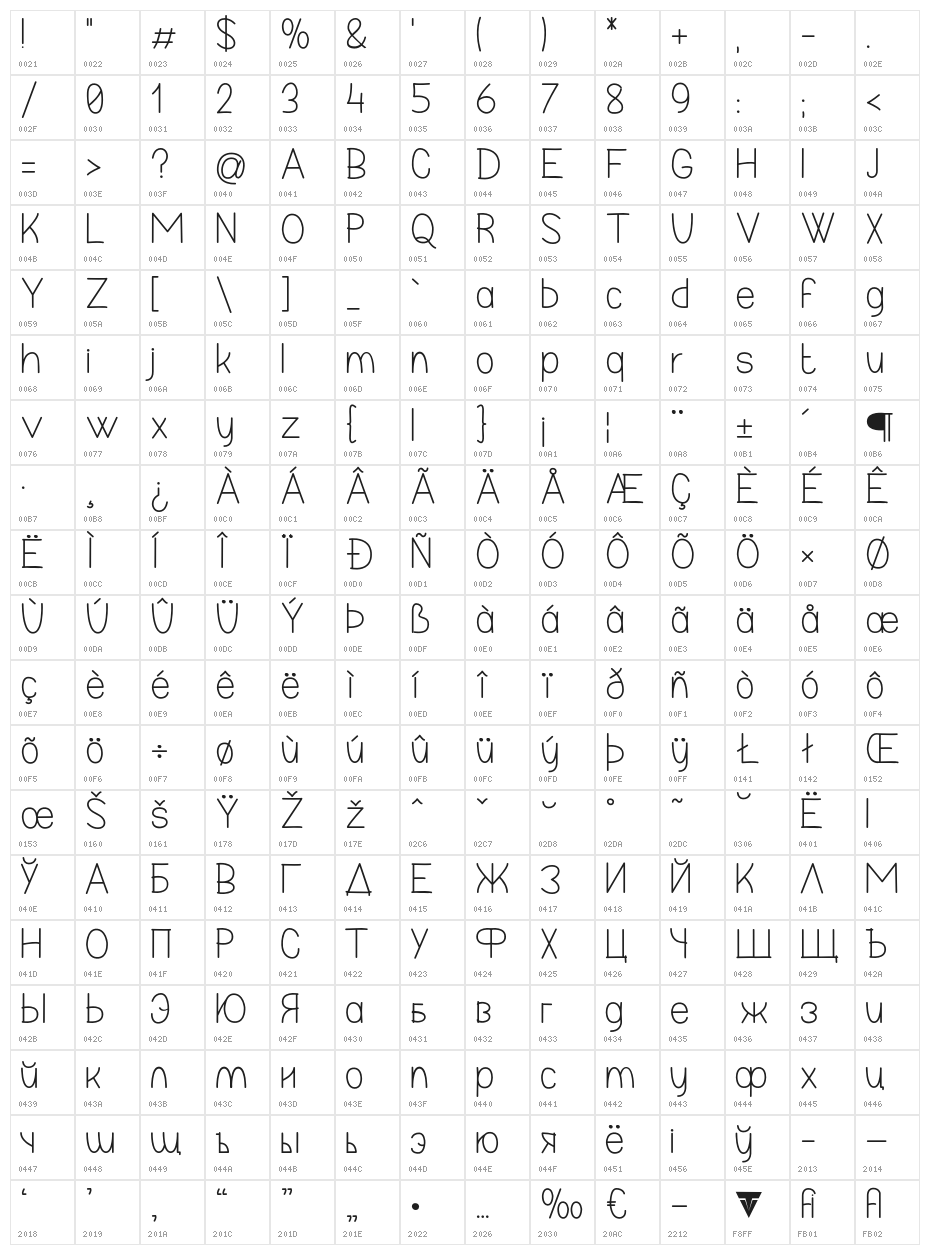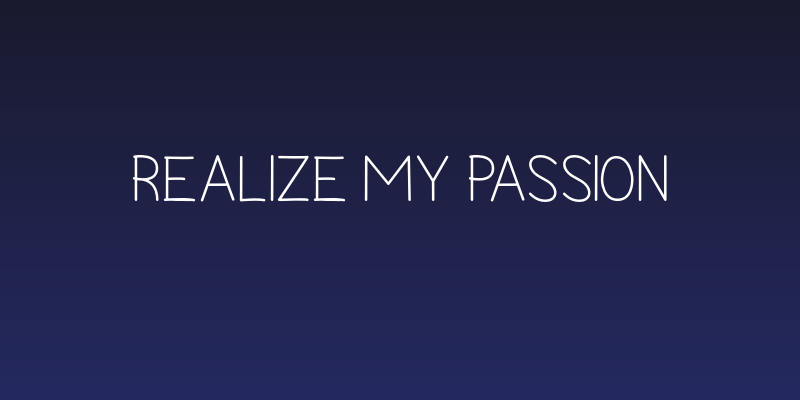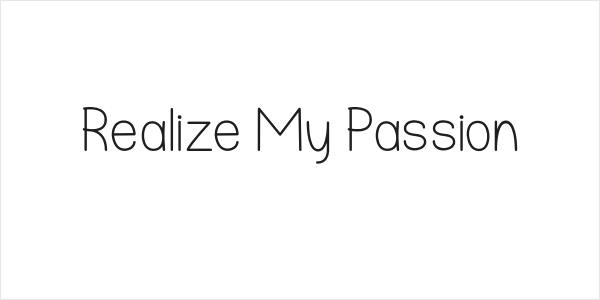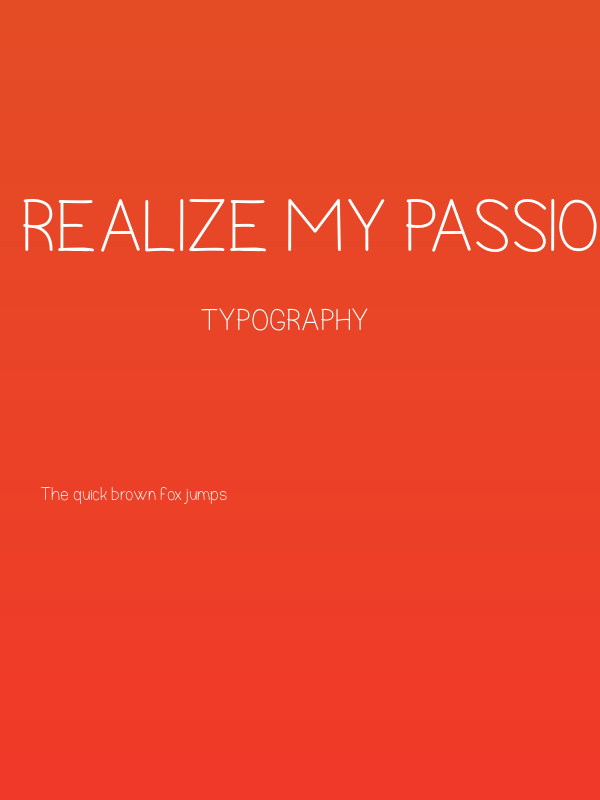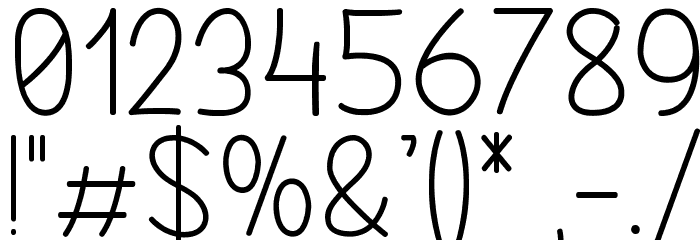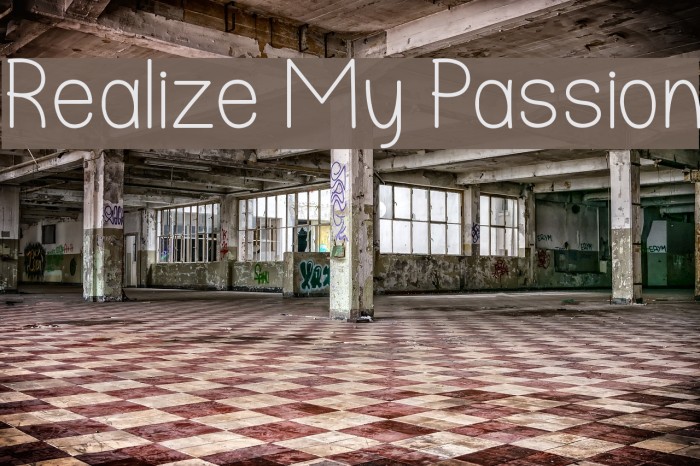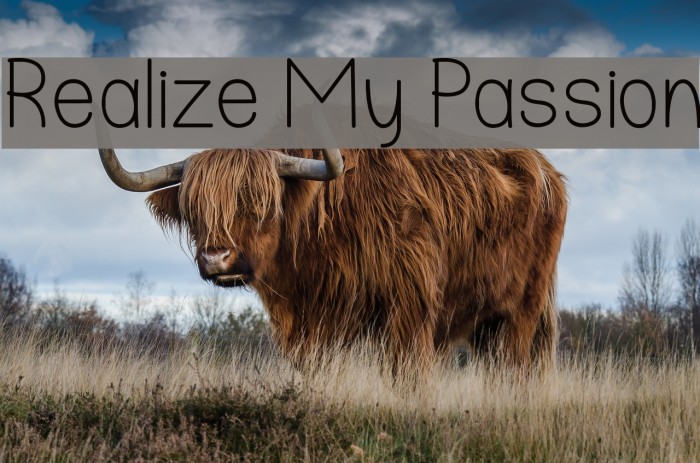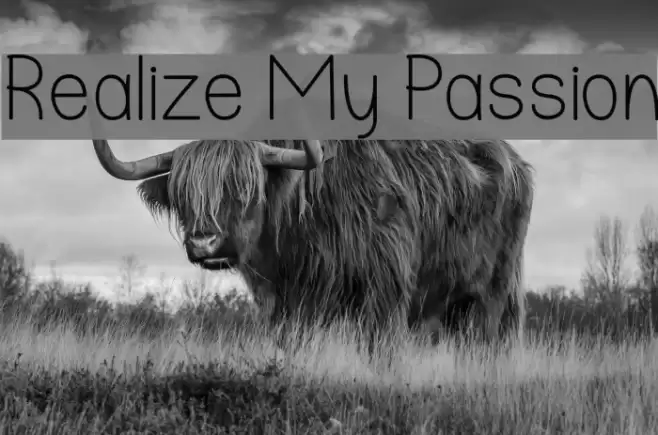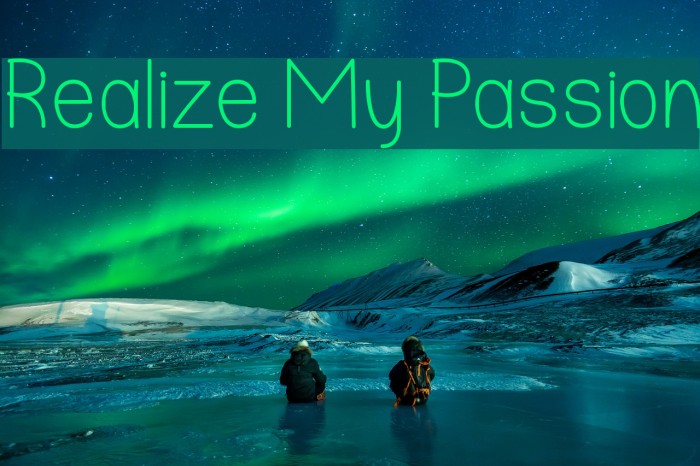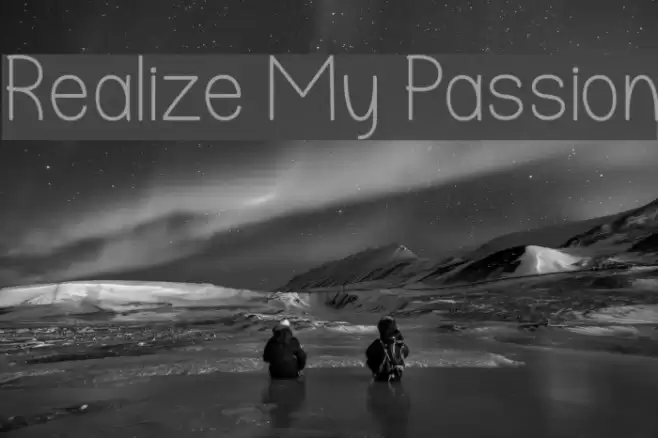
Realize My Passion Font
Realize My Passion Description
This font features a clean and modern sans-serif style with a geometric structure. The characters are evenly spaced and maintain a consistent stroke width, giving it a uniform appearance. The uppercase letters are tall and slightly narrow, while the lowercase letters have a rounded, friendly look. The numerals are clear and easy to read, matching the overall aesthetic of the font. Special characters are well-integrated, maintaining the same line weight and style as the alphanumeric characters. This font is versatile, suitable for both digital and print media, offering a contemporary and approachable feel.
| Proposed Projects | Ideal for branding, web design, advertising, and editorial layouts due to its clean and modern appearance. |